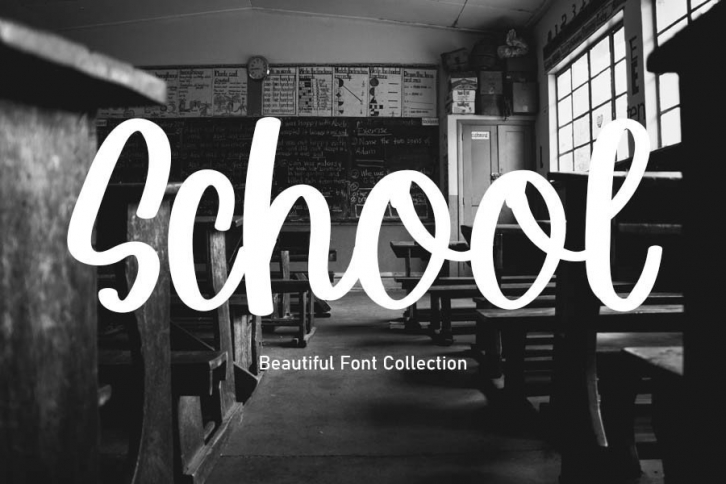
School is a sweet and cursive handwritten font. This font was particularly crafted for those who need a beautiful and refreshing look to their designs.Â